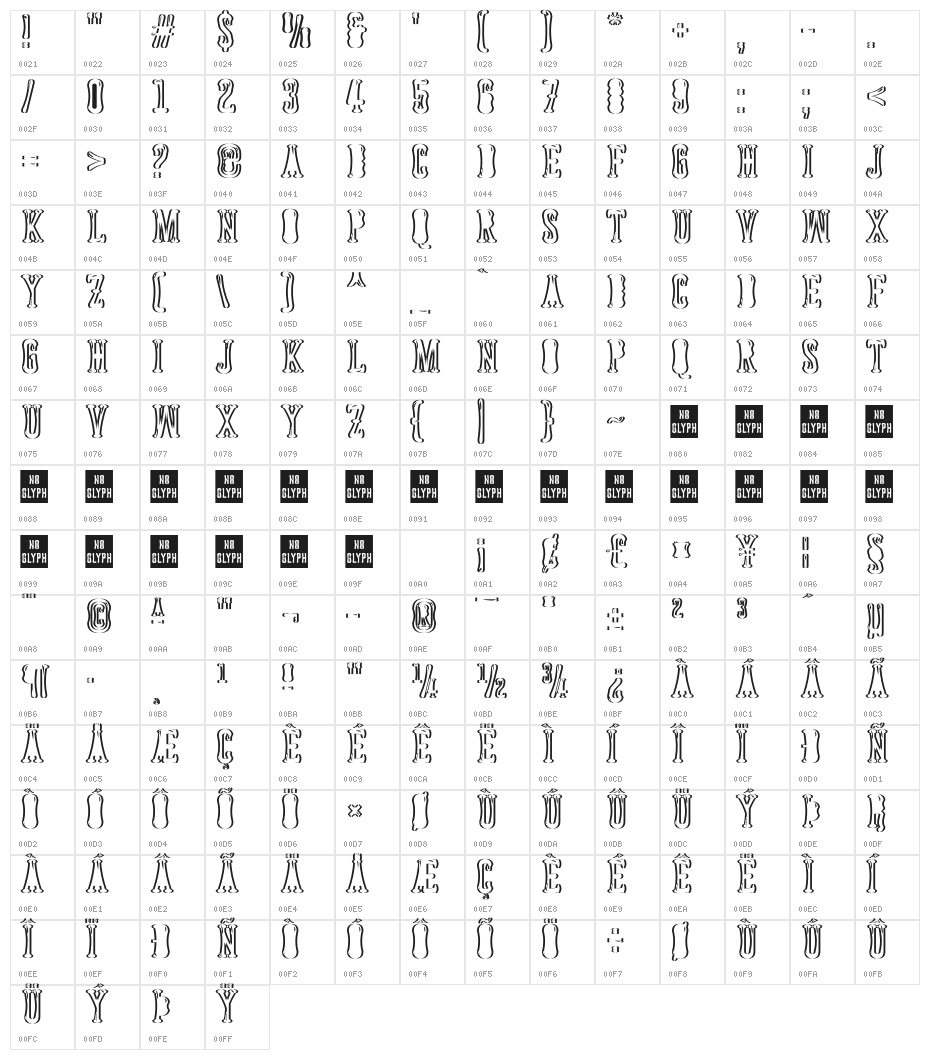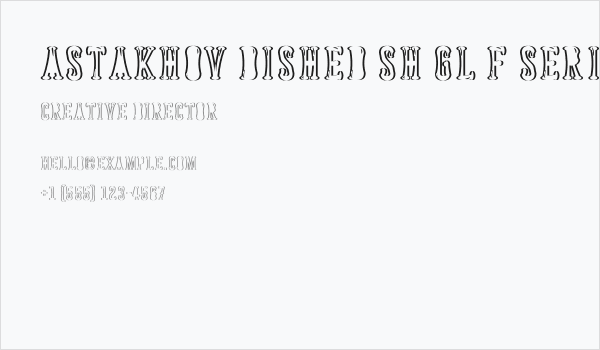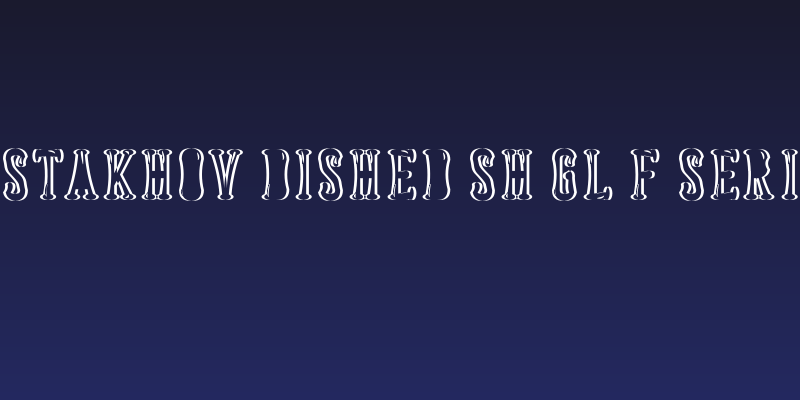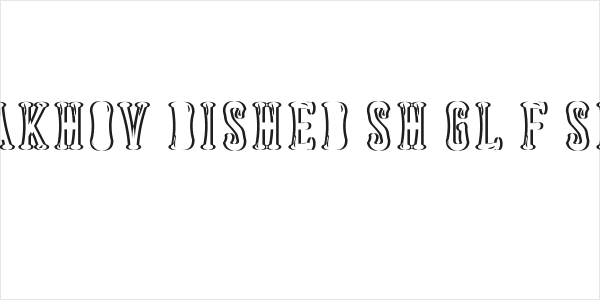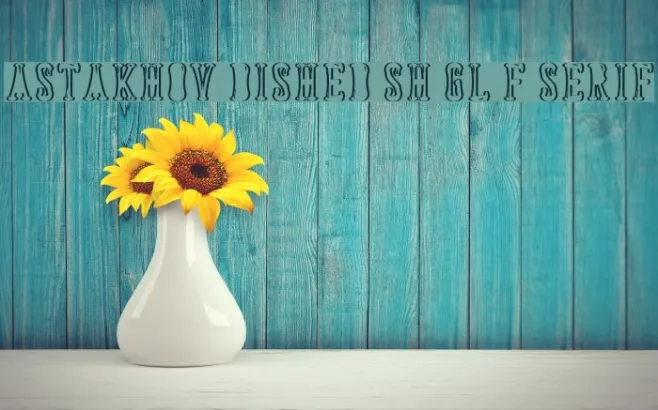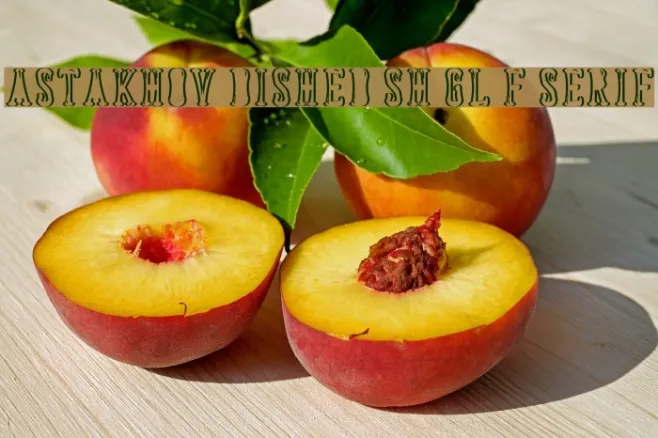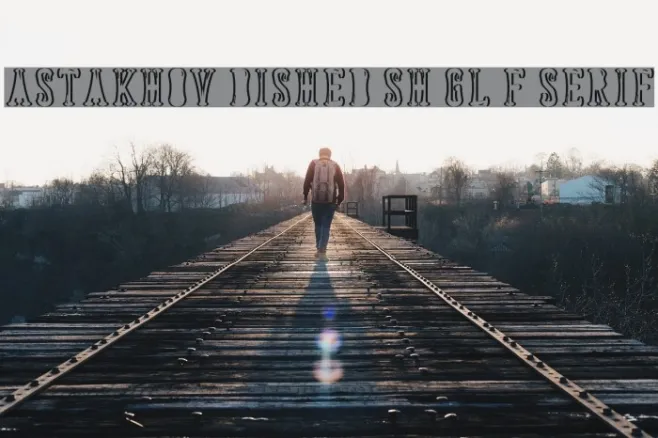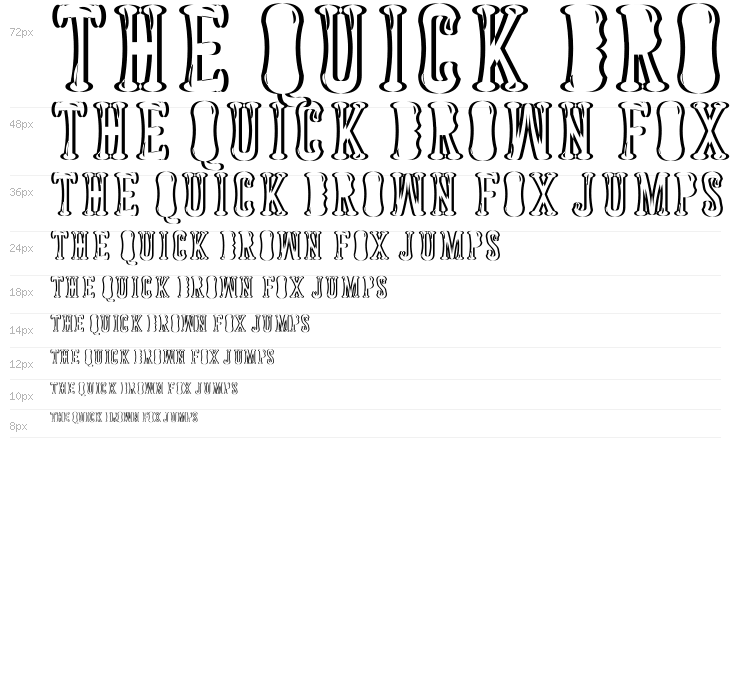
Astakhov Dished Sh Gl F Serif Font
Astakhov Dished Sh Gl F Serif Description
This font features a unique and bold design with a distinct decorative flair. The characters are crafted with a playful, almost whimsical style, incorporating exaggerated serifs and intricate detailing. The uppercase and lowercase letters maintain a consistent theme, with each character exhibiting a sense of movement and fluidity. The numbers and special characters are equally stylized, adding to the font's overall cohesive appearance. The font's design is reminiscent of vintage circus or carnival posters, making it ideal for projects that require a touch of nostalgia and creativity.
| Overall Style | Vintage, Decorative |
| Use Case | Headlines, Posters, Branding |
| Proposed Projects | Ideal for posters, event invitations, branding for creative industries, and any project needing a vintage or playful touch. |